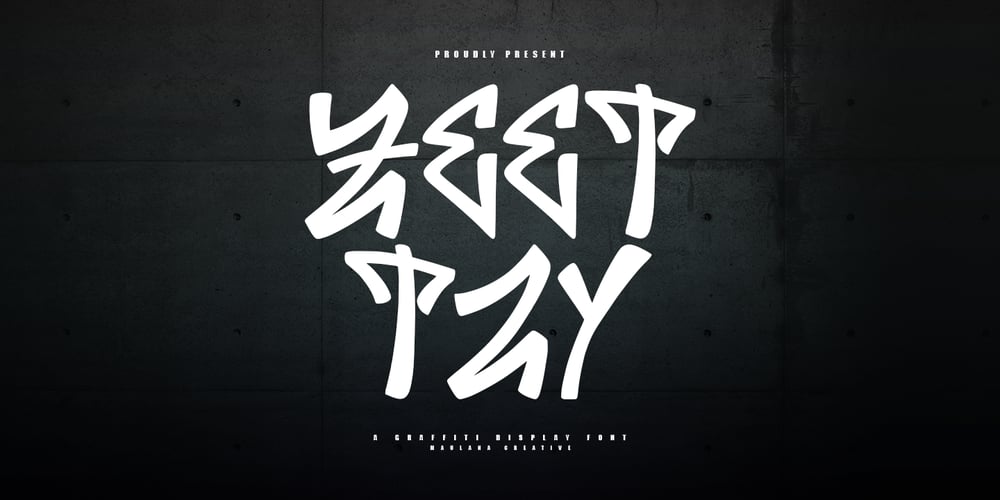
MC Zeettzy Font Family was designed by Gilang Maulana and published by Maulana Creative. MC Zeettzy contains 1 styles and family package options. Zeettzy urban graffiti display font. Heavy stroke, fun character with a bit of alternates. To give you an extra creative work. Zeettzy urban graffiti display font support multilingual language. This font is good for logo design, Social media, Movie Titles, Books Titles, a short text even a long text letter and good for your secondary text font with script or serif. Make a stunning work with Zeettzy graffiti display font.